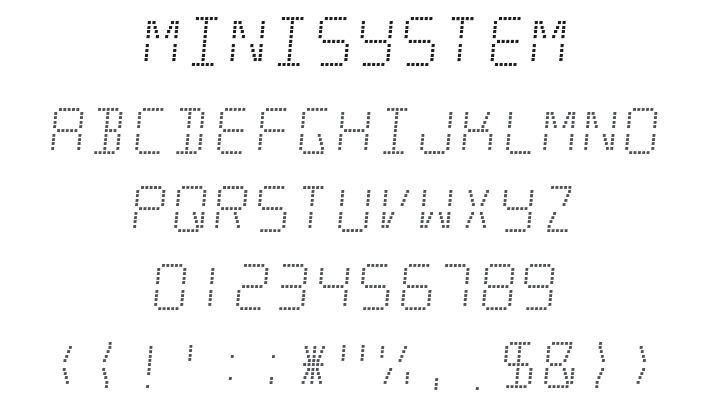
Minisystem Font
About Minisystem
Minisystem is a dotted LCD display typeface recreating the segmented dot-matrix screens found on 1990s home stereos and car audio systems — each character is built from evenly spaced dots that mimic those budget gadget displays that wanted to look high-tech without the cost of true bitmap screens. Its nostalgic digital warmth is instantly recognizable. Perfect for retro electronics aesthetics, music player UIs, tech posters, and lo-fi gadget-era designs.